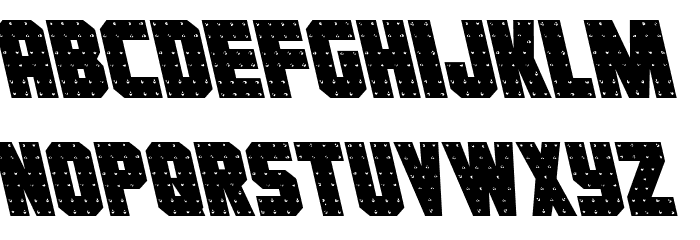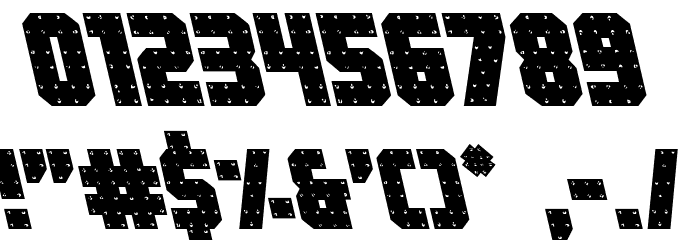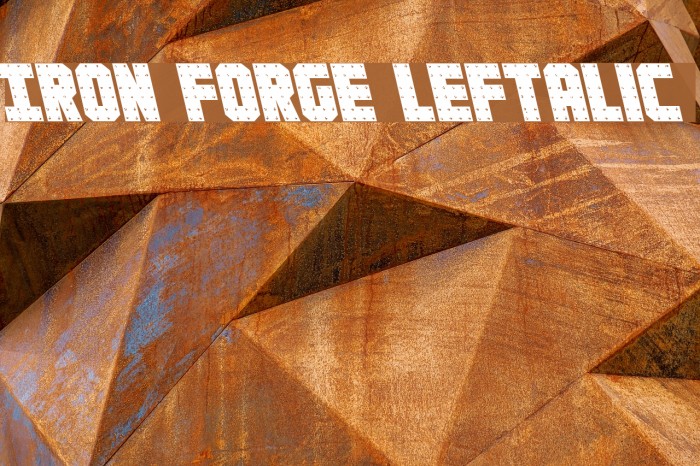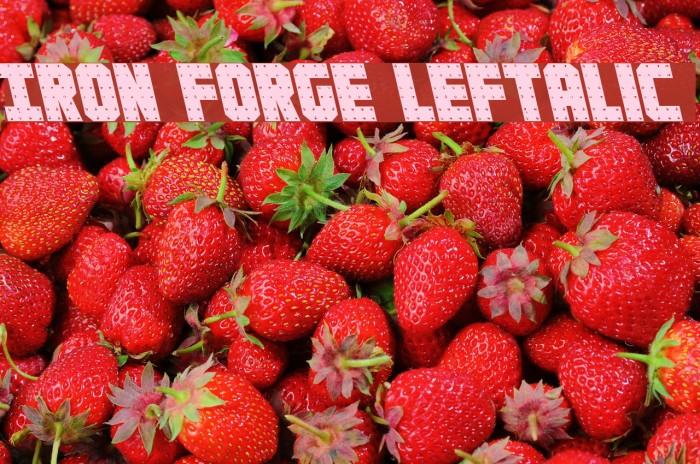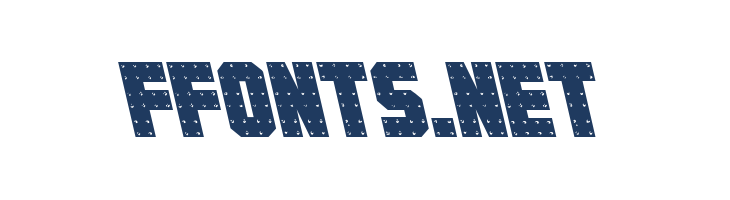
Iron Forge Leftalic Font
This font features a bold, industrial design with a distinctive pattern of small, irregular shapes scattered across each character, giving it a rugged, textured appearance. The characters are blocky and angular, with a strong presence that commands attention. The uppercase and lowercase letters maintain a consistent style, while the numbers and special characters complement the overall aesthetic. The font's unique texture and boldness make it suitable for projects that require a strong, impactful visual element.
A bold, industrial font with a rugged, textured appearance.
- Proposed Projects: Ideal for branding, posters, and signage that require a strong, industrial look.
- Overall Style: Industrial, Rugged